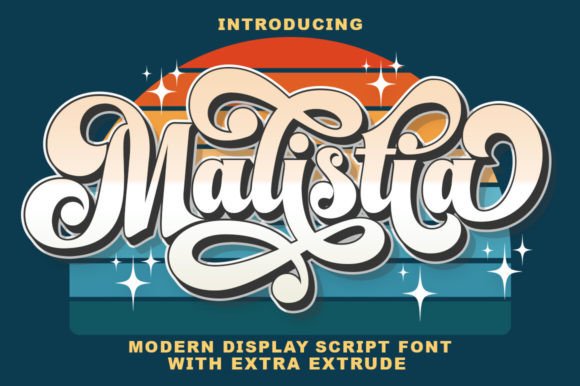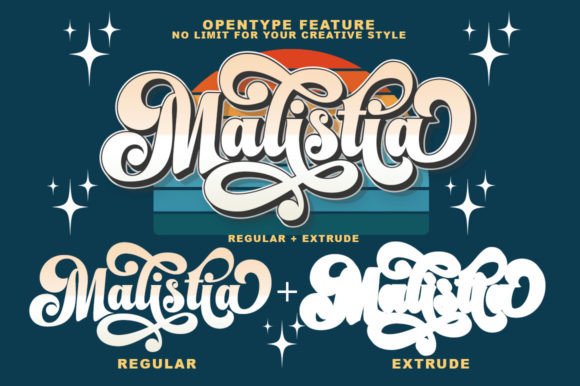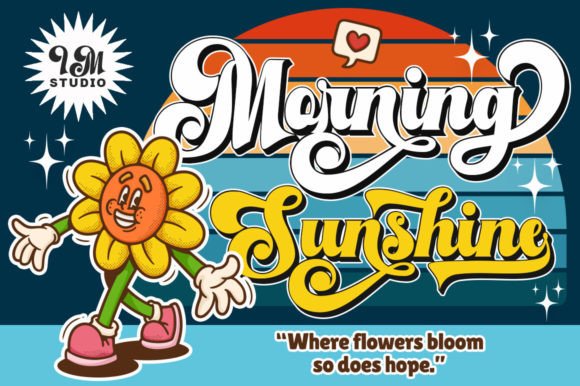
Malistia Font
Malistia – Retro & Extrude is full of nostalgia and features a great display font. Use this display font to add a special retro touch to any design idea you can think of!Expertly designed to be a true favorite, this font has the potential to take any of your creative ideas to the highest level!